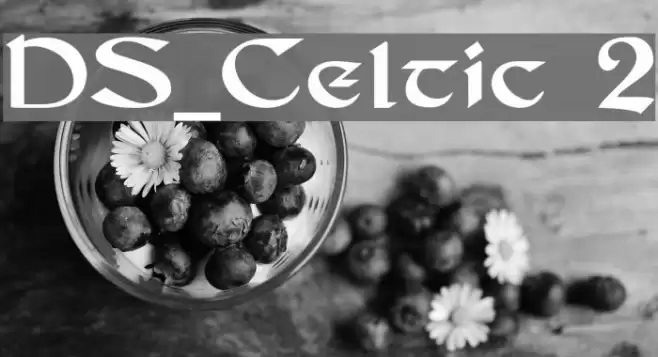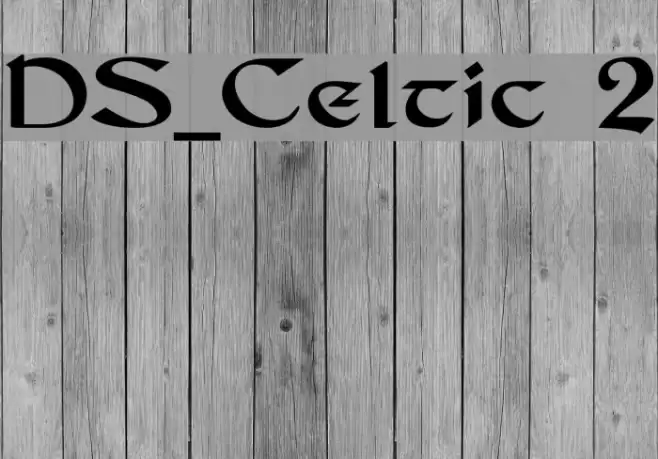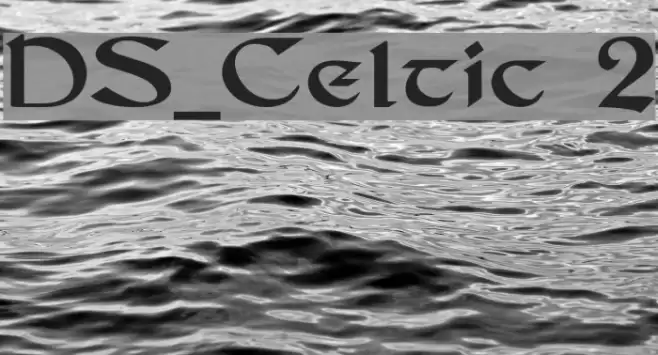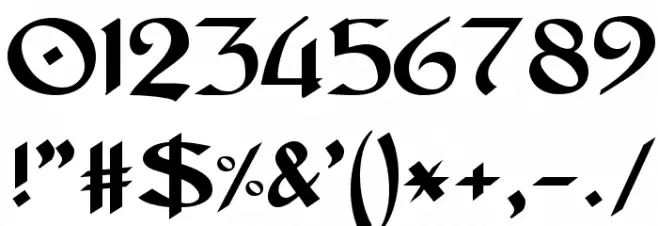
DS_Celtic 2 Font
DS_Celtic 2 Description
This font features a distinct Celtic-inspired design with sharp, angular edges and a bold presence. The uppercase letters exhibit a strong, geometric form with unique serifs that give it a medieval feel. The lowercase letters maintain the same angular style, providing a cohesive look throughout. Numbers and special characters are crafted with the same attention to detail, ensuring consistency across all glyphs. The overall aesthetic is both historical and decorative, making it suitable for projects that require a touch of ancient elegance.
A bold, Celtic-inspired font with sharp, angular edges and a medieval aesthetic from Uncategorized fonts.
- Proposed Projects: Ideal for historical or fantasy-themed projects, book covers, posters, and branding that requires a touch of ancient elegance.
- Overall Style: Vintage